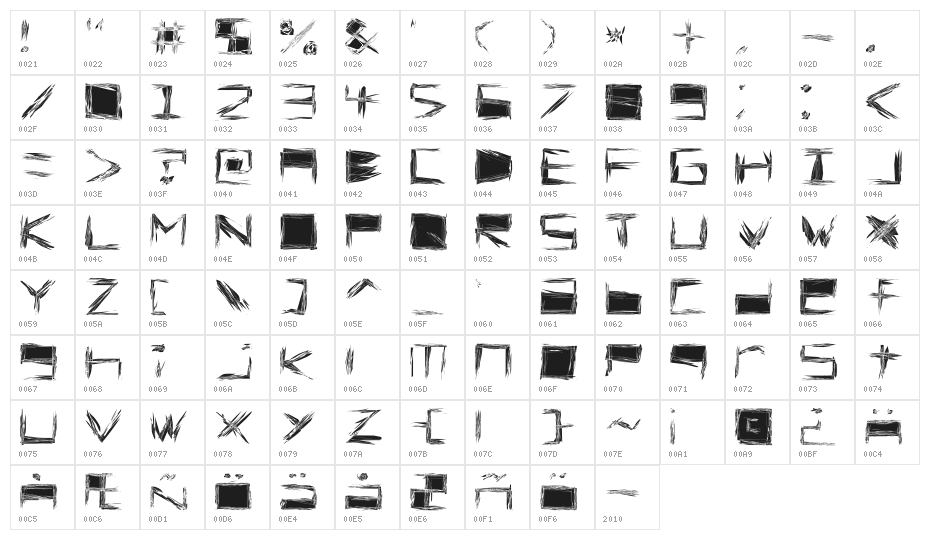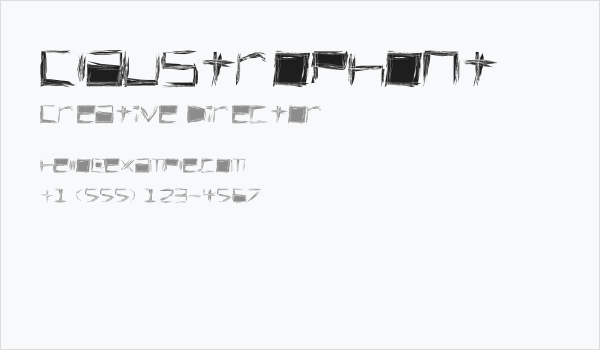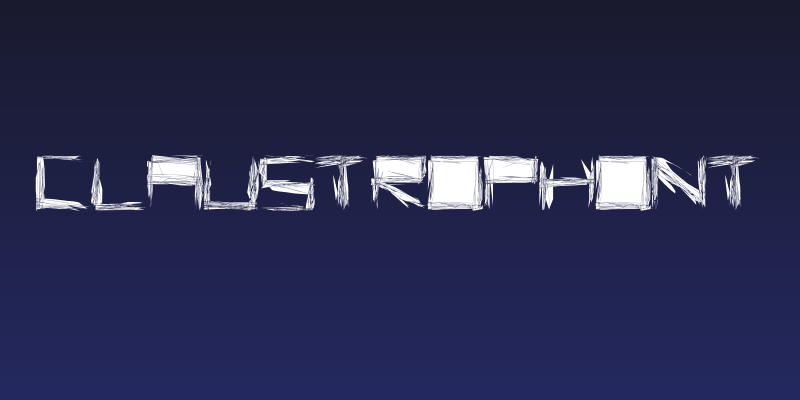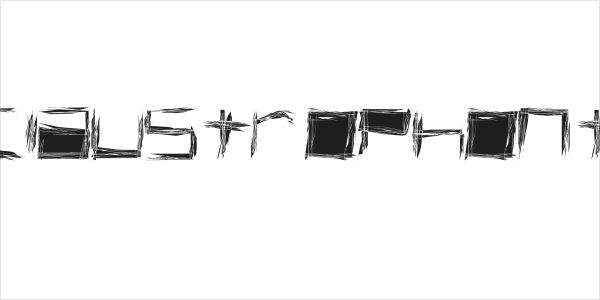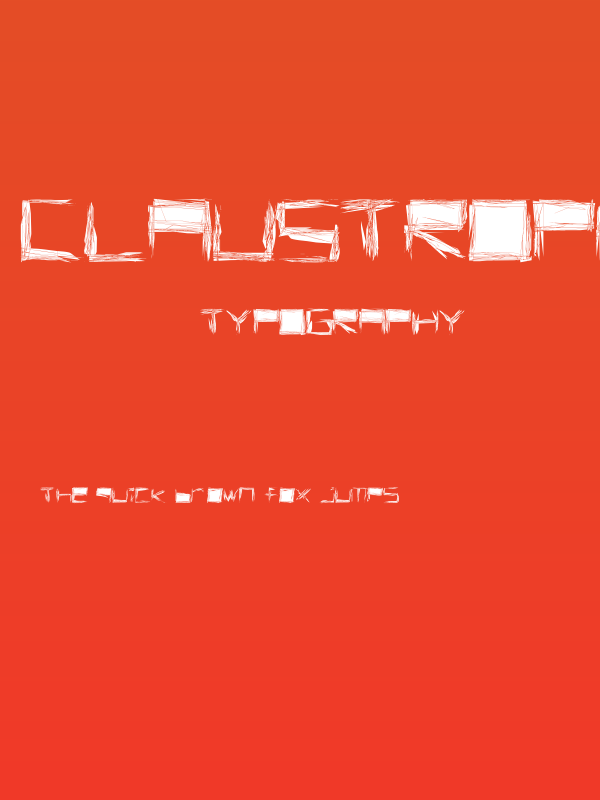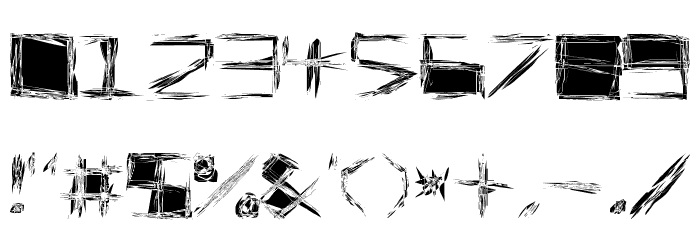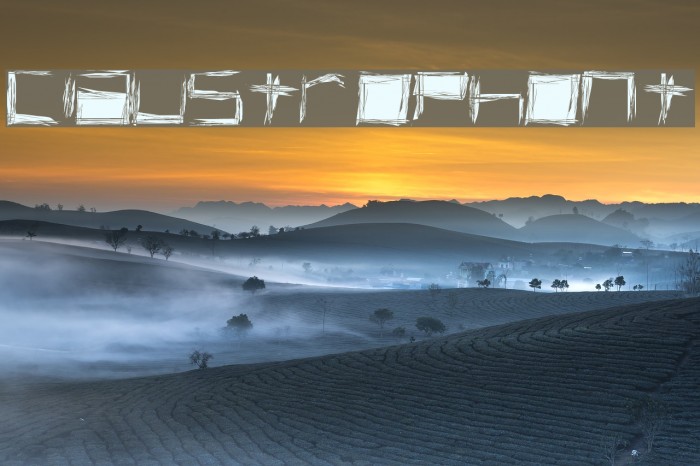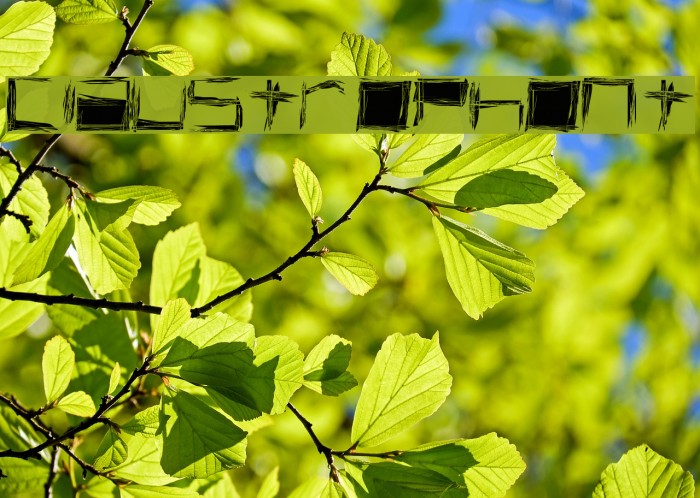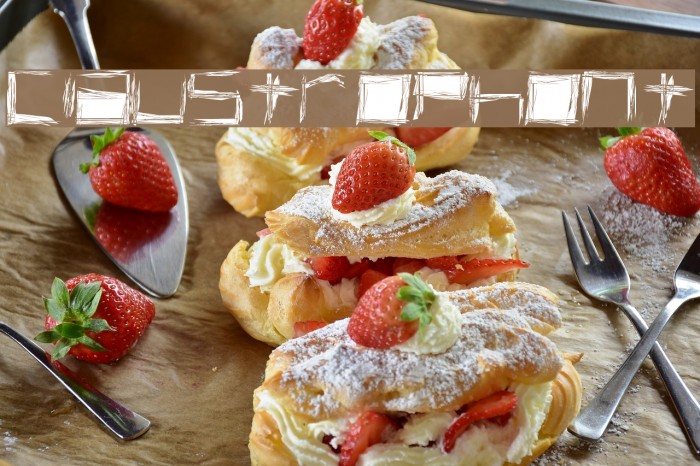
Claustrophont Font
Claustrophont Description
This font features a highly distinctive and edgy design, characterized by its jagged, fragmented appearance. The letters are constructed with sharp, angular strokes that give a sense of chaos and movement. Each character appears as if it has been scratched or carved, creating a raw and dynamic texture. The uppercase and lowercase letters maintain a consistent style, while the numerals and special characters follow the same aesthetic, ensuring a cohesive look. This font's unique style makes it stand out, offering a bold statement in any design project.
Andrew Lander - formerly at home.earthlink.net/~landerfam/fonts.html
| Proposed Projects | Ideal for album covers, horror movie posters, edgy branding, and streetwear designs. |